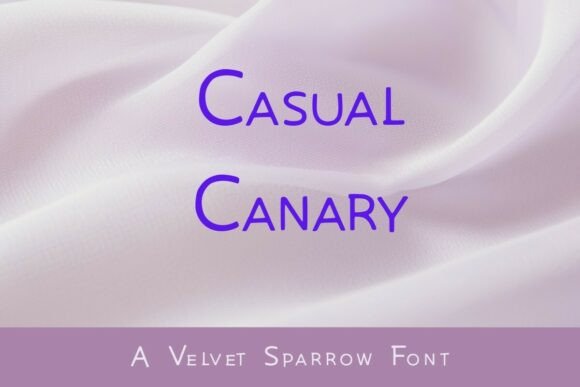
The Perfect Font for Creative Projects: Casual Canary
I still remember the design project that led me to discover Casual Canary. I was working on a children’s educational workbook, and I needed a font that was both playful and easy to read. After hours of scrolling through font libraries, I stumbled upon Casual Canary, and it was love at first sight! ✨ The light, relaxed lettering style with smooth strokes and an easygoing feel instantly captured the tone I was aiming for. In this article, I’ll share my experience with Casual Canary, its features, and how to make the most of it in your creative projects.
An Honest Review of Casual Canary
• ✨ Highly readable: Casual Canary’s simple forms and gentle curves make it perfect for long texts, notes, and educational materials.
• ✅ Friendly and informal: This font has a warm, approachable tone that adds a personal touch to any design.
• 🎨 Versatile: Casual Canary works well in both digital and print formats, making it a great choice for various creative projects.
While Casual Canary is an excellent font, it’s not without its quirks. ⚠️ One thing to note is that it may not be the best choice for very large titles or headings, as it can lose some of its charm when scaled up. Additionally, some users might find the font a bit too casual for very formal projects. 🤔
The Backstory of Casual Canary
While the origins of Casual Canary are unclear, it’s likely that the font was designed with the intention of creating a friendly and approachable typeface. The designer may have been inspired by the beauty of handwritten lettering and the need for a font that could convey a sense of warmth and approachability. 🤔
Q: What is Casual Canary best used for?
A: Casual Canary is best used for creative projects that require a friendly and informal tone, such as notes, labels, planners, journaling, quotes, educational materials, and kids’ projects.
Q: Is Casual Canary suitable for large titles or headings?
A: While Casual Canary can be used for titles and headings, it may not be the best choice for very large text, as it can lose some of its charm when scaled up.